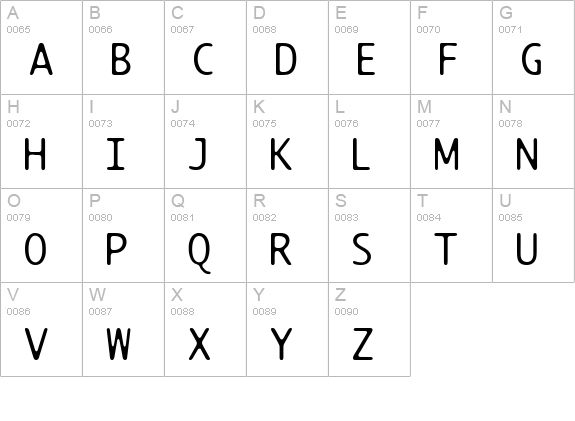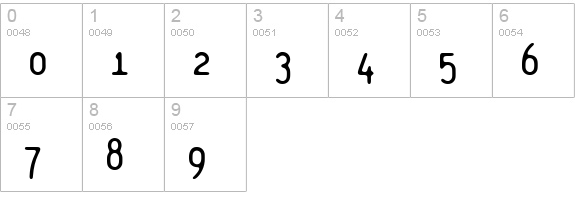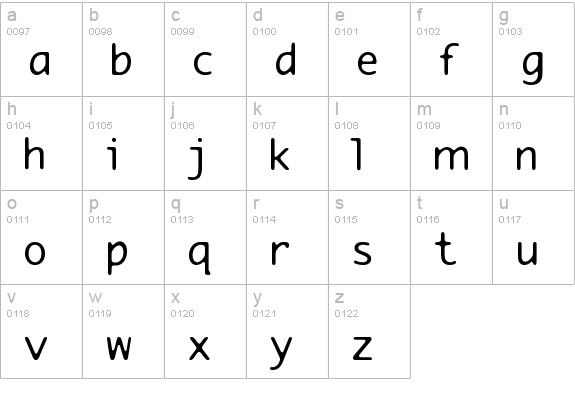
Element Font Details
Element font is a modern and stylish typeface that exudes elegance and sophistication. With its sleek lines and contemporary design, Element font is perfect for a wide range of design projects, from branding to editorial layouts. This versatile font is sure to make a statement and elevate any design to the next level. The best part about Element font? It's completely free! Yes, that's right - you can download this amazing font for free at FontsMarket.com. Don't miss out on the opportunity to add Element font to your collection and take your designs to new heights. Download it today and let your creativity shine with this beautiful and elegant typeface.